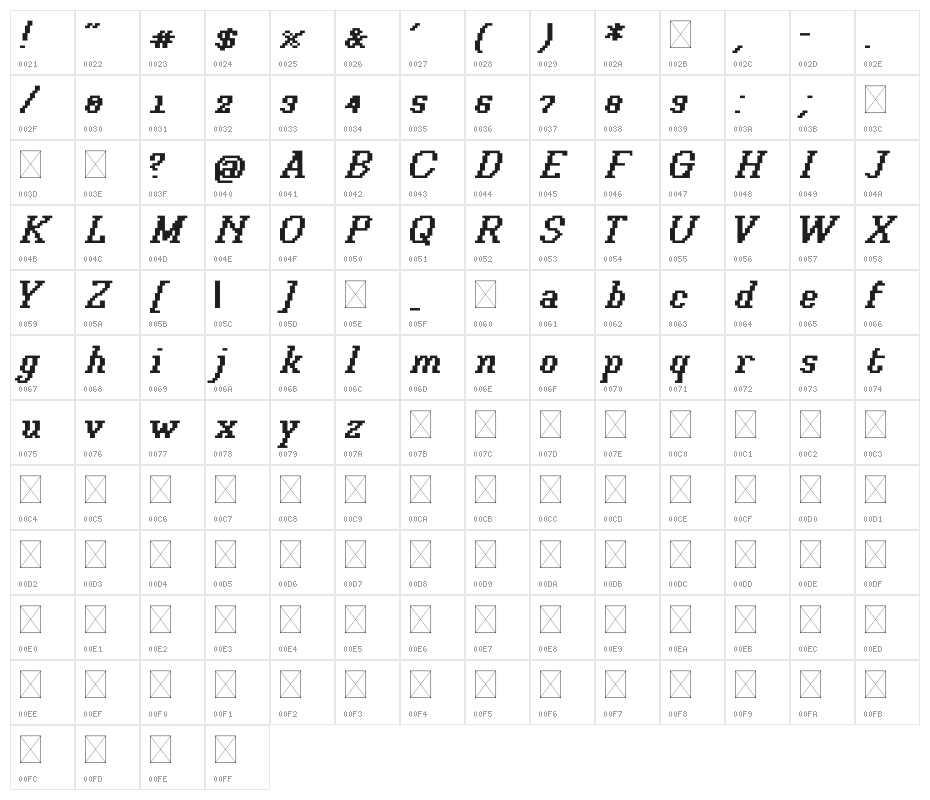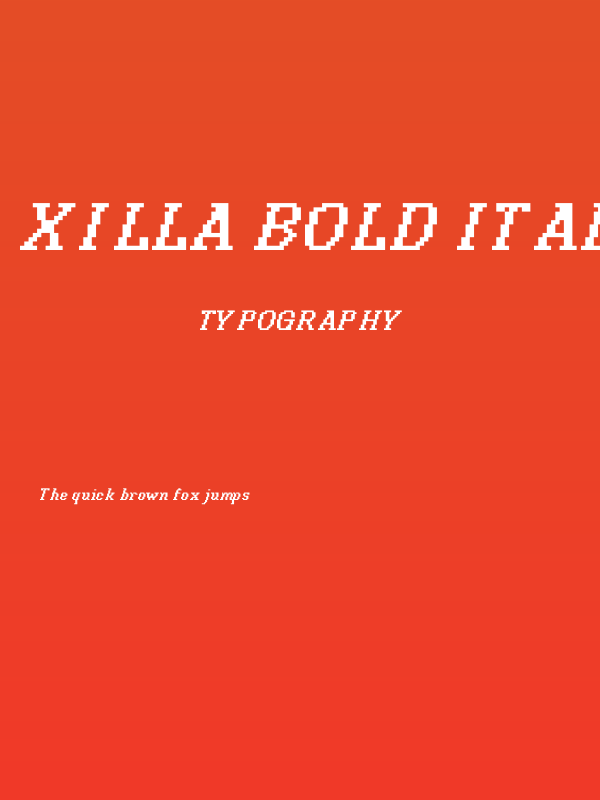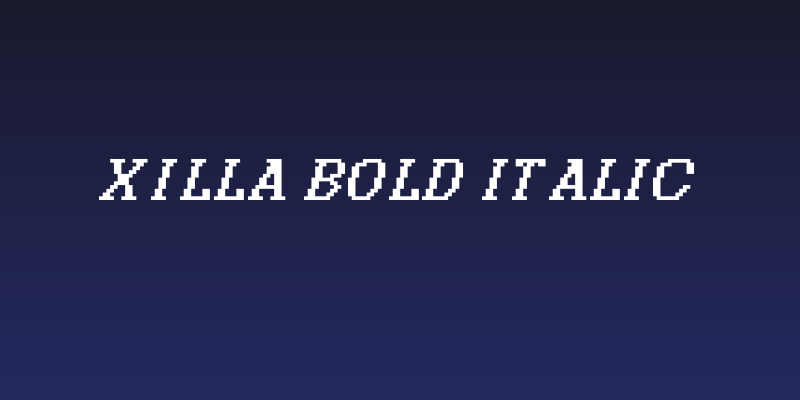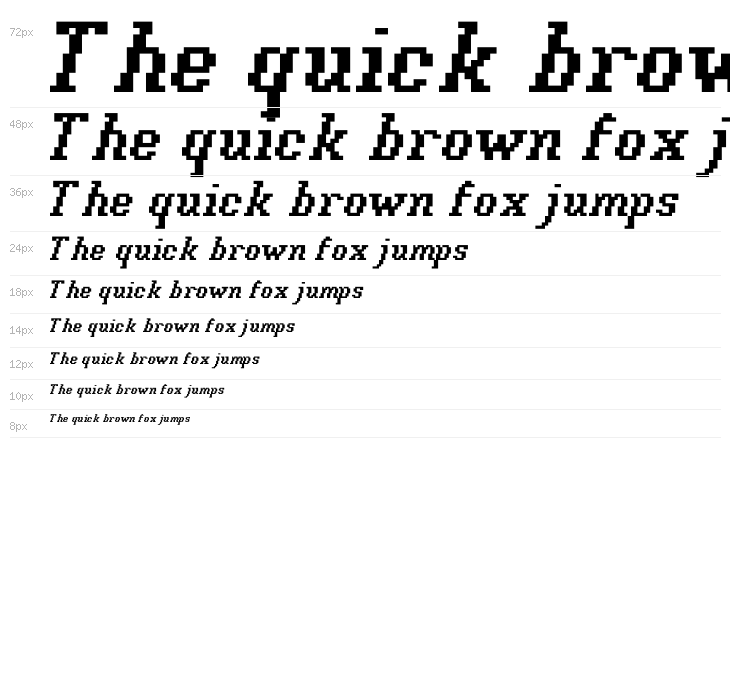
Xilla Bold Italic Font
Xilla Bold Italic Description
This font features a bold and italicized style with a pixelated, digital appearance. The characters are distinctly angular, reminiscent of early computer graphics or retro video game text. Each letter and number is constructed with a blocky, grid-like structure, giving it a unique, tech-inspired look. The uppercase and lowercase letters maintain consistent proportions, while the numbers and special characters follow the same pixelated theme. This font's boldness and slant add a dynamic feel, making it stand out in digital and creative projects.
| Overall Style | Retro, Digital |
| Use Case | Logos, Headlines, Digital Art |
| Proposed Projects | Ideal for video game design, digital art projects, retro-themed posters, and tech-related branding. |